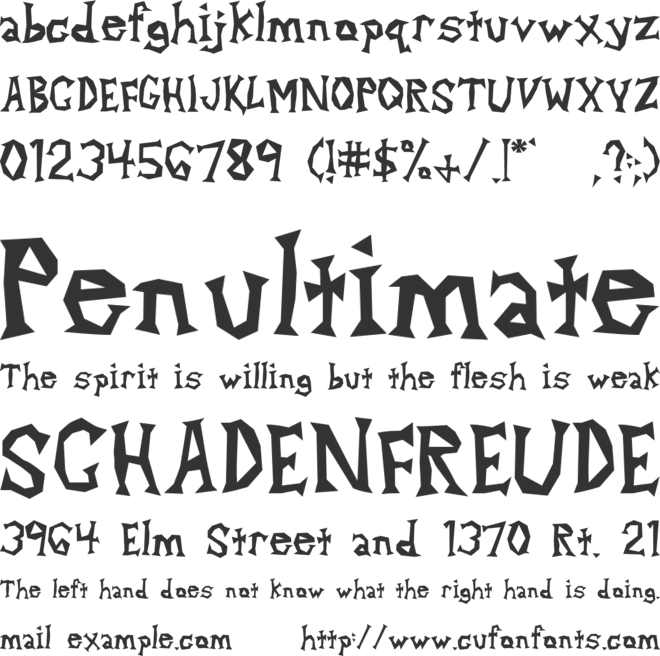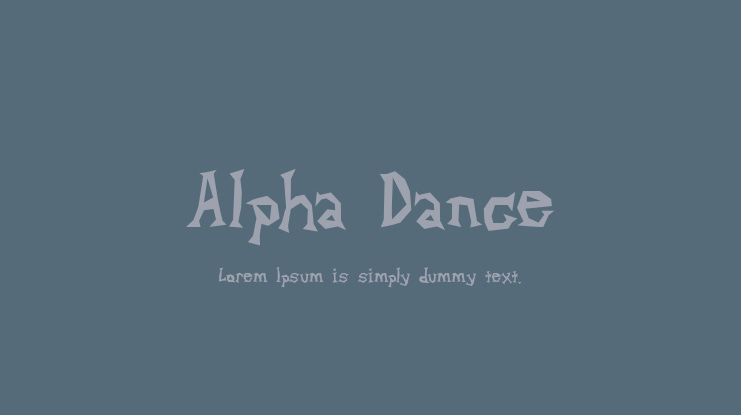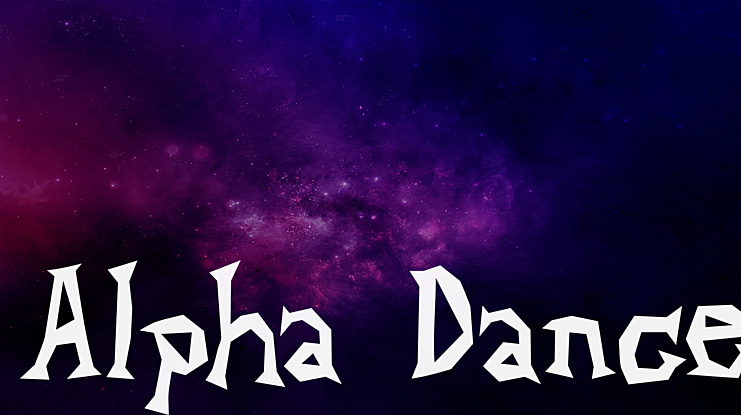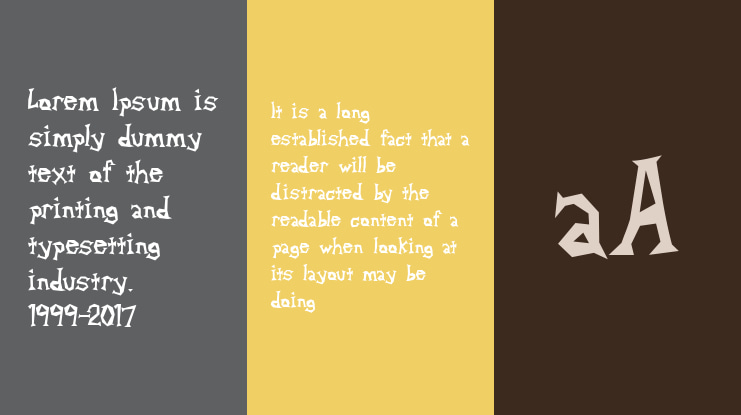
Alpha Dance Font
Ben McGehee
This version includes upper and lowercase letters, punctuation, and many international characters. I also included some UA Type dingbats (just to amuse myself, and so you don't get those annoying boxes when you type something that isn't in the font).I was bored with my job. I was making way too many copies - about 7000 at one time. So I drew out some stuff. After my girlfriend saw what I was making, she told me it looked like the letters were dancing. I could kinda see it, so I called it Alpha Dance, which is short for Alphabet Dancing (because I thought it sounded cooler).